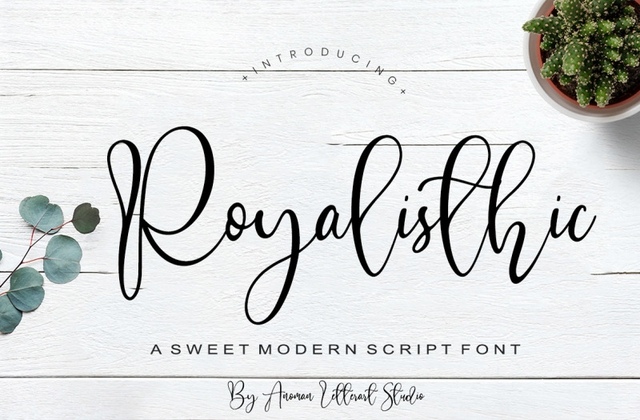
Royalisthic Script Font
Royalisthic Script Font is perfect for wedding invitations, luxury branding, greeting cards, high-end packaging, and elegant social media posts. Its flowing, sophisticated script adds a touch of refinement and style to any design.
What makes Royalisthic Script Font exciting is its graceful curves and beautifully connected letterforms, which create a sense of elegance and prestige. The font’s refined appearance makes designs feel both personal and luxurious.
The Royalisthic Script Font family includes Regular, Bold, Italic, and Swash variations, providing designers with the flexibility to craft intricate and elegant typographic compositions.